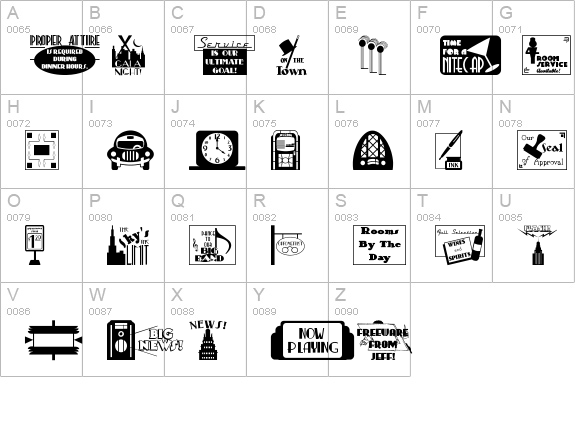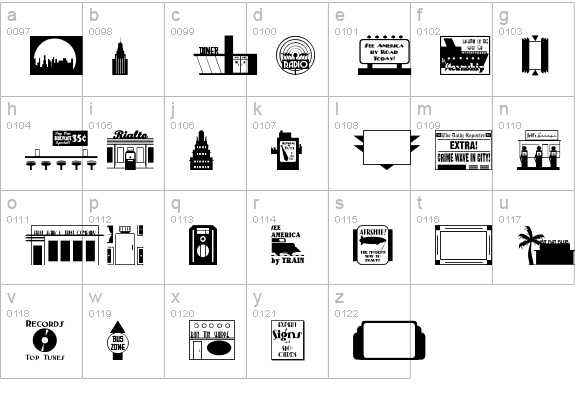
Deco Pics JL font is a stunning display typeface that exudes elegance and sophistication. With its intricate details and artistic flair, this font is perfect for adding a touch of vintage charm to your designs. The ornate decorations and stylish letterforms of Deco Pics JL make it ideal for projects that require a touch of class and luxury. What makes Deco Pics JL even more appealing is that it is available for free download at FontsMarket.com. This means that you can easily access this beautiful font and use it in your creative projects without any cost. Whether you're working on invitations, posters, or branding materials, Deco Pics JL will elevate your designs and make them stand out. Don't miss out on the opportunity to enhance your creations with the timeless beauty of Deco Pics JL font. Download it for free today and let its elegance inspire your next project.